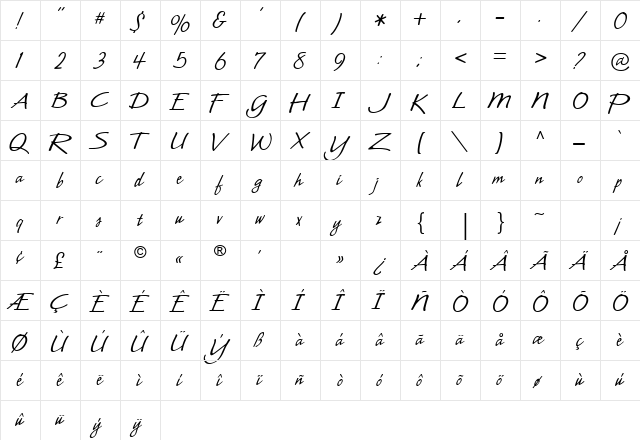
CAC Leslie Regular
Design Context for CAC Leslie Typeface
CAC Leslie is a composed and adaptable typeface that performs quietly and consistently across a wide range of design contexts.